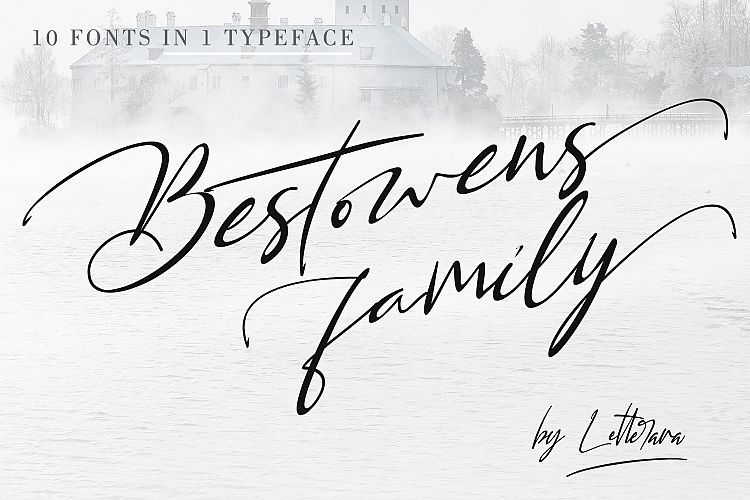
Bestowens Family Font
Bestowens Family is the perfect handwritten font: Elegant, Sweet, innocent, light and charming, this one-of-a-kind typeface will add a unique charm to any design project!
Bestowens Family  font was created to look as close to a natural handwritten script as possible by including  44 ligatures.
With built in Opentype features, this script comes to life as if you are writing it yourself. You can see it in the picture shown.